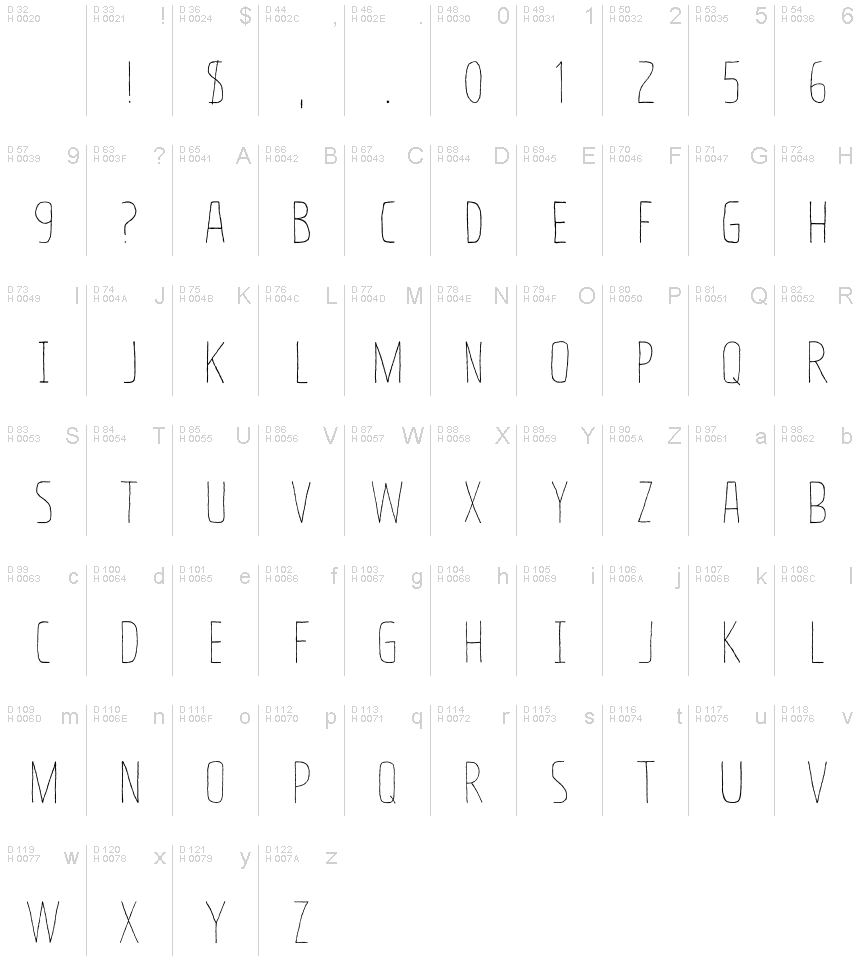
Pomerans DEMO Regular
Pomerans font by Hanoded is a captivating handwritten typeface that exudes authenticity and charm. With its light weight and condensed style, this font offers an airy yet striking appearance, making it perfect for those seeking a distinctive touch in their designs. The handcrafted essence of Pomerans lends itself beautifully to projects requiring a personal feel, such as invitations, greeting cards, or artistic branding.